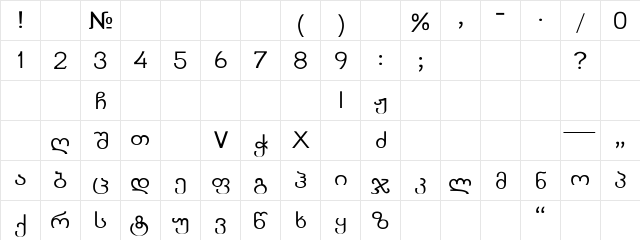
GEO-Kolkhetnusx Regular
Design Context for GEO-Kolkhetnusx Typeface
GEO-Kolkhetnusx offers clean, dependable letterforms without strong stylistic allegiance, making it a practical choice for designers who need flexibility.
Pro Tip: Use GEO-Kolkhetnusx in both headline and body roles to test its range before committing to a single application.